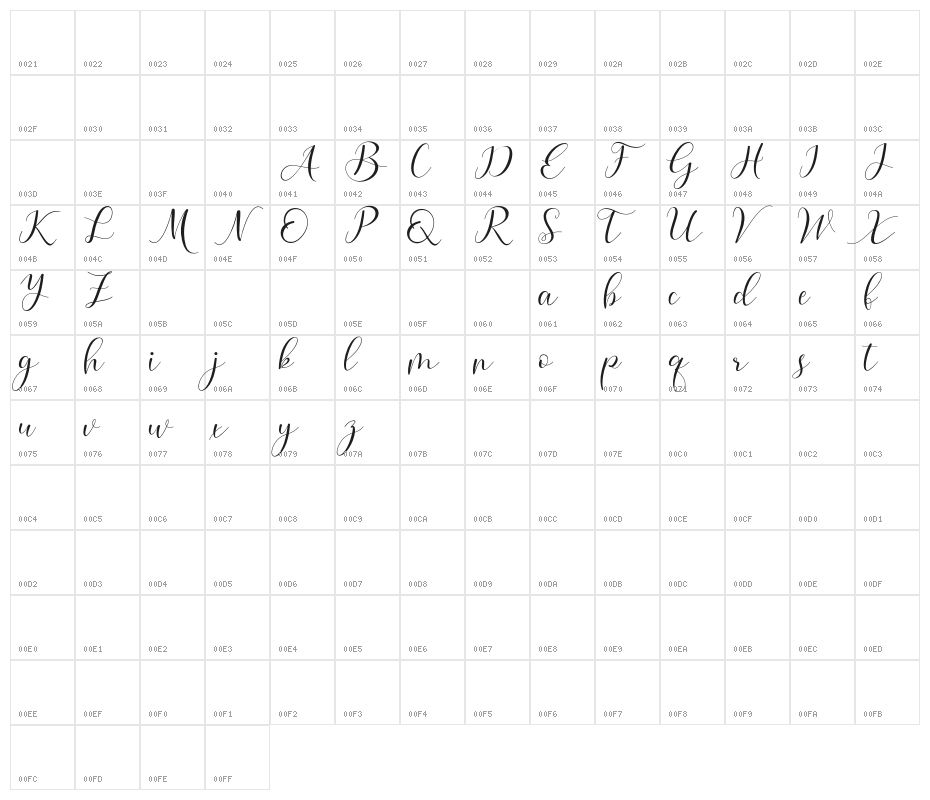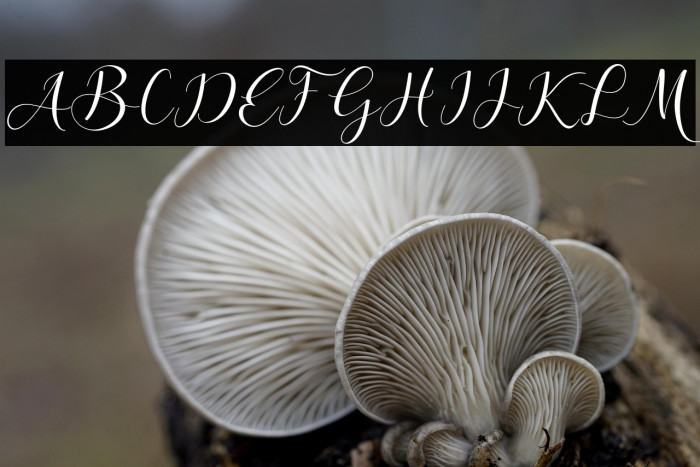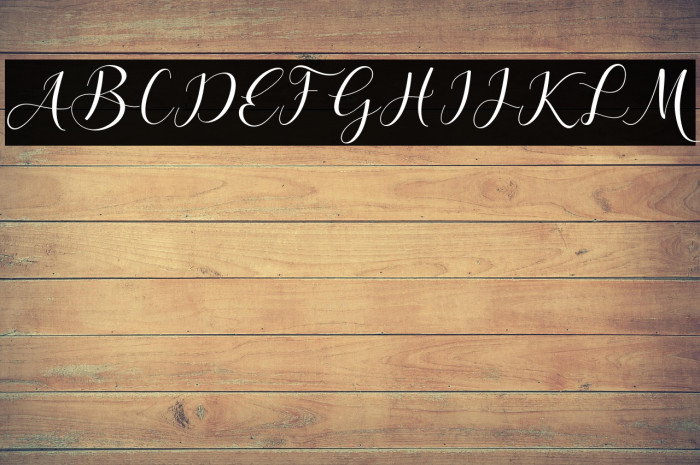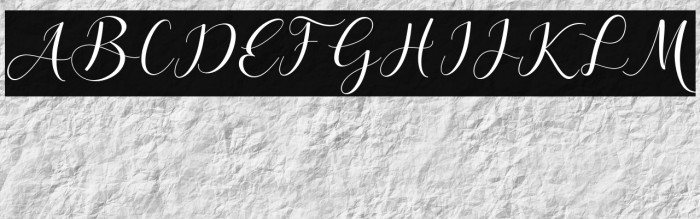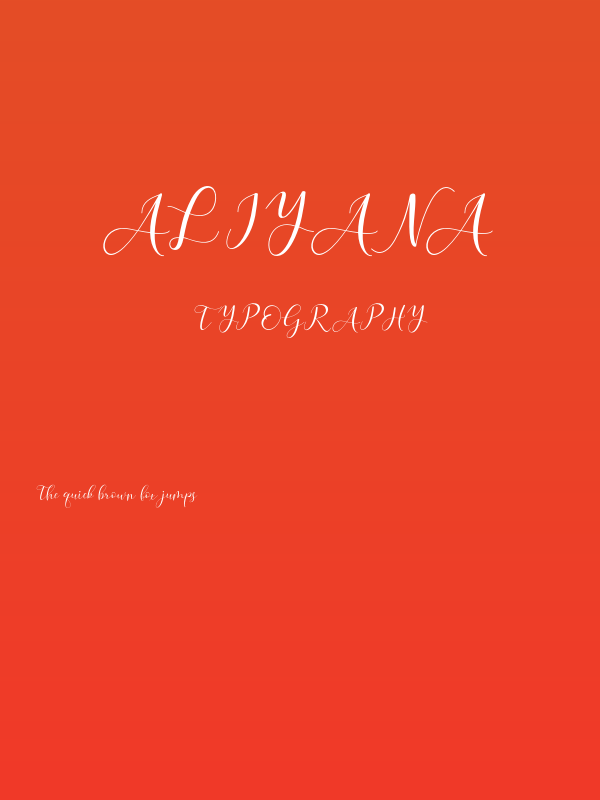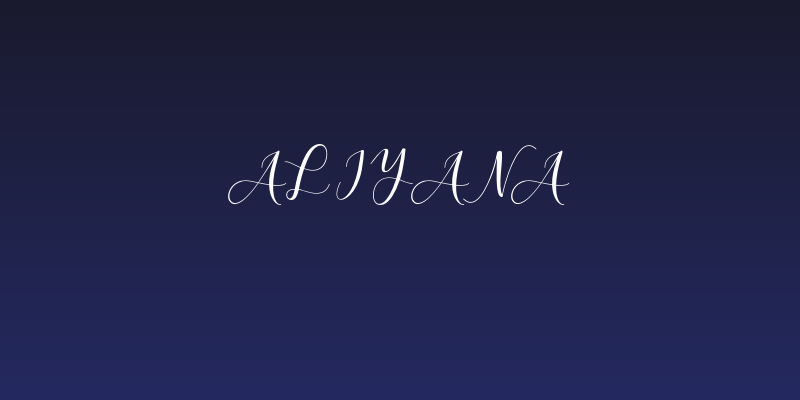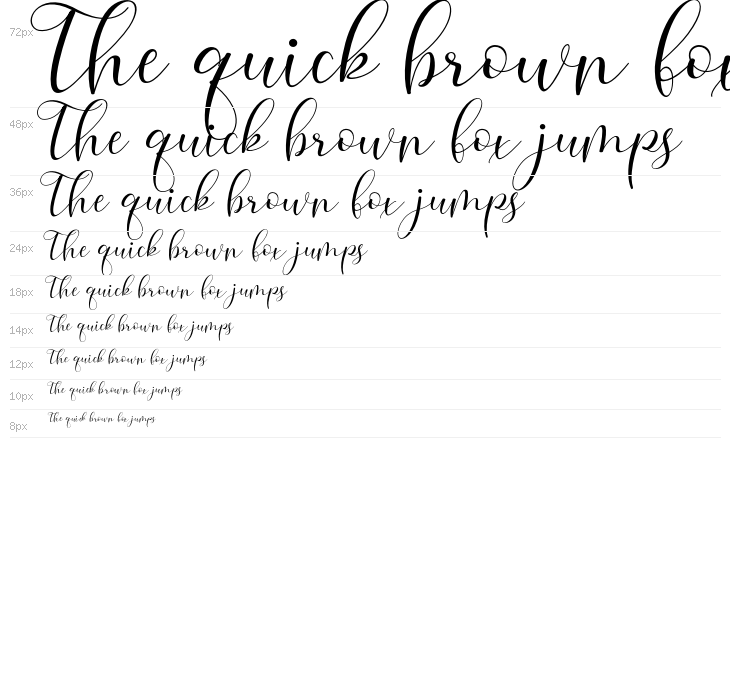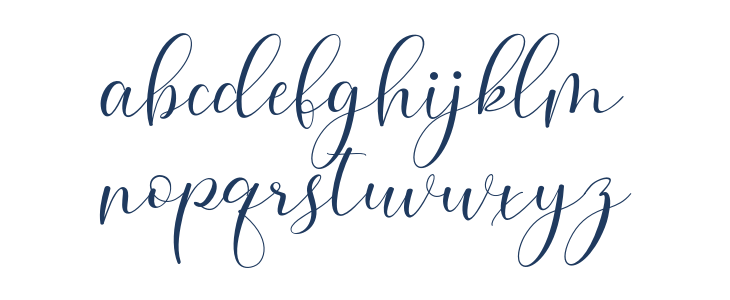
Aliyana Font
Aliyana Description
This elegant script font features flowing, interconnected letters with a graceful and sophisticated appearance. The uppercase letters are tall and slender, with delicate swashes that add a touch of flair. The lowercase letters maintain a consistent flow, enhancing the font's cursive style. The overall design is both stylish and legible, making it suitable for formal invitations, branding, and decorative purposes. The font's high contrast between thick and thin strokes adds to its visual appeal, creating a dynamic and eye-catching effect.
| Use Case | Invitations, Branding, Decorative |
| Proposed Projects | Ideal for wedding invitations, luxury branding, greeting cards, and elegant logos. |